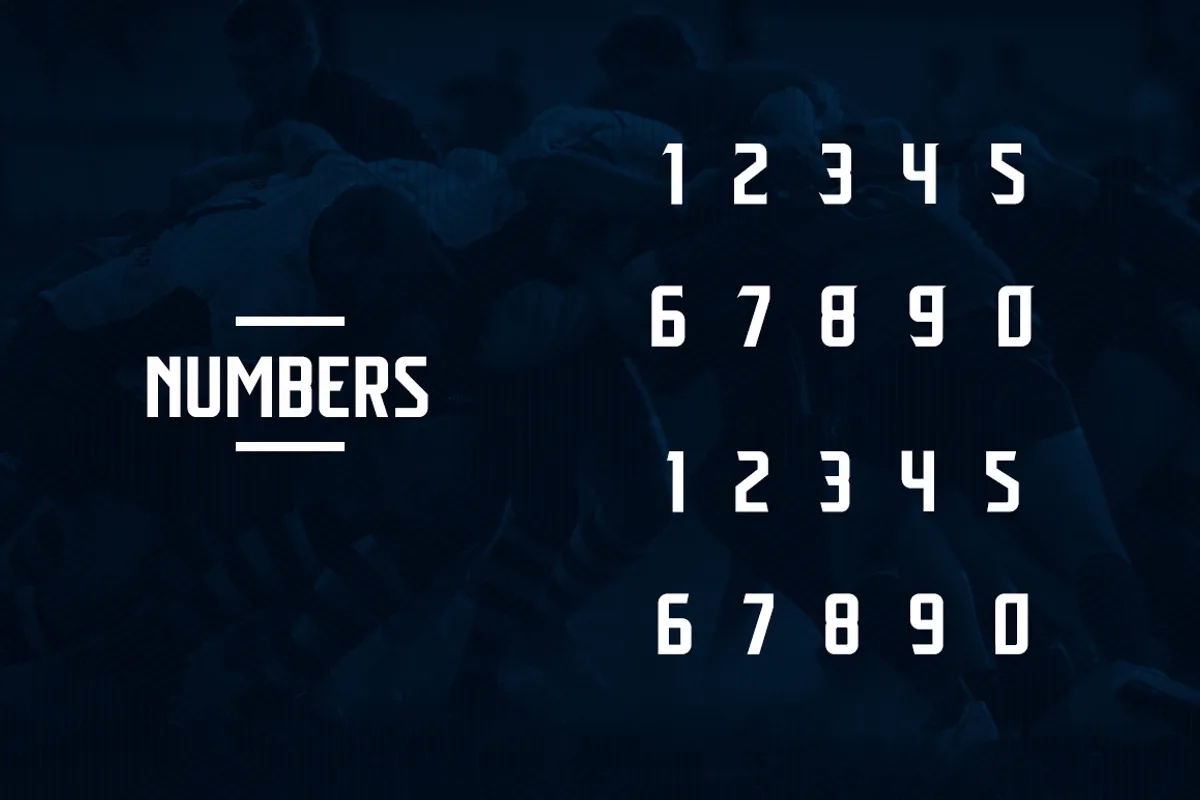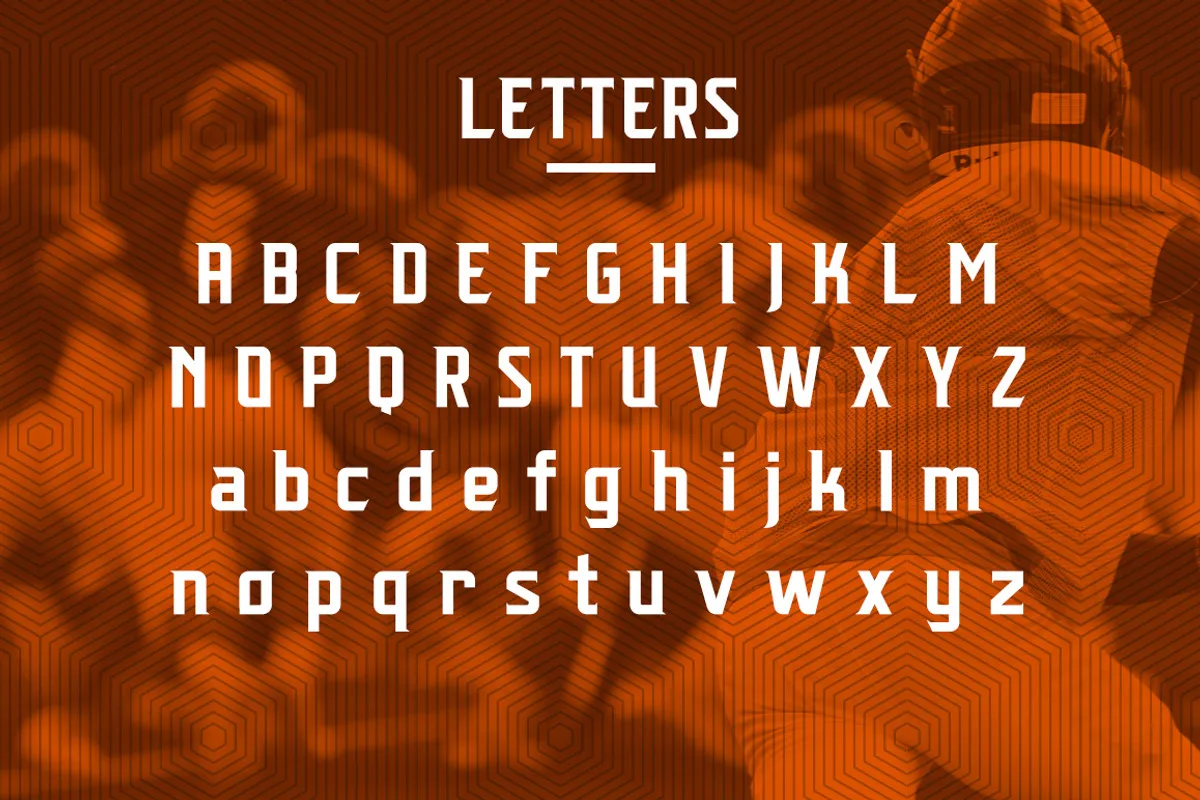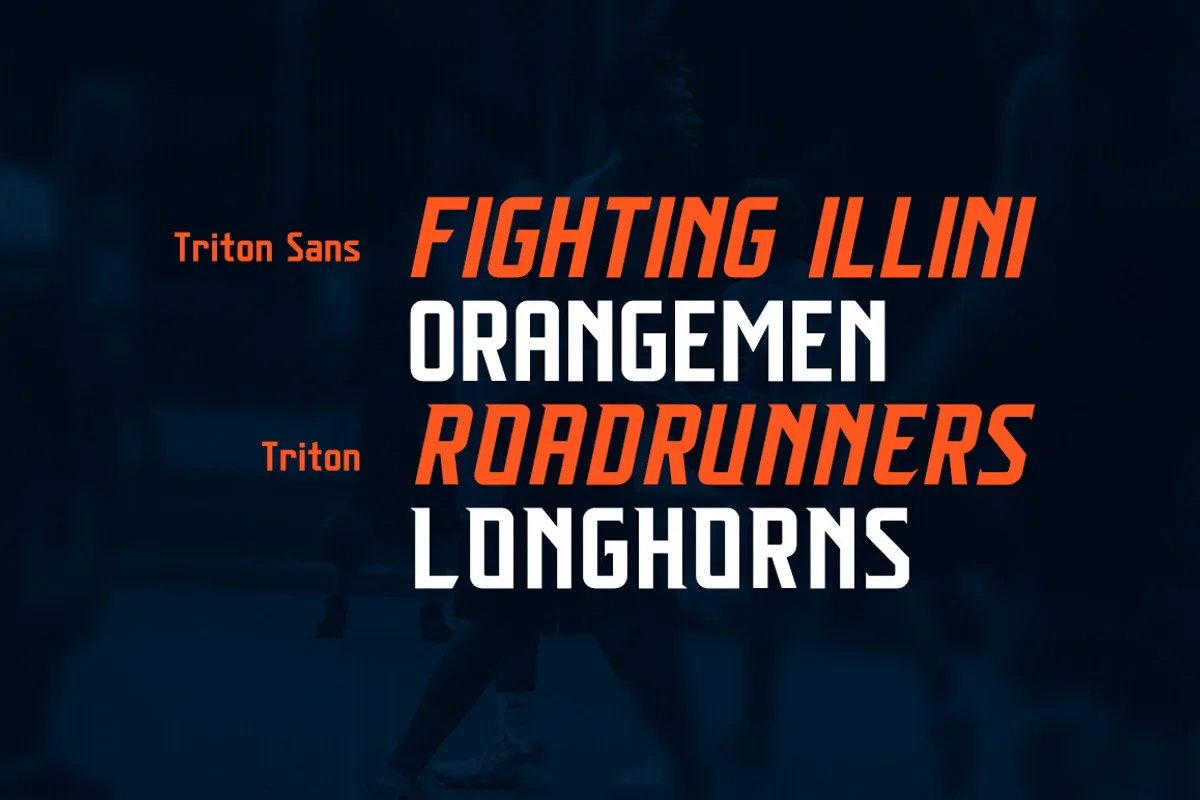
Triton was created with sports designers and their usages of type in mind. It is perfect for sports, apparel, promo and large headline uses. It’s versatility allows you to brand each sport and is built with jersey placement in mind, so you could utilize Triton on each sports’ jersey to really tie things together!
Inspiration came from sports logo design and Nike’s recent NCAA/NFL type systems. With added punctuation, it’s more than just your basic A-Z/0-9, which means you can use it for more pieces, such as social media, ads, game programs, etc.
New Features Include
- 4 fonts (2 Regular and 2 Italics)
- Lowercase
- Alternate Glyphs (Mix things up)
- Basic Diacritics (In case you need to throw down some Spanish/French, etc.)
Triton Sports Font Family